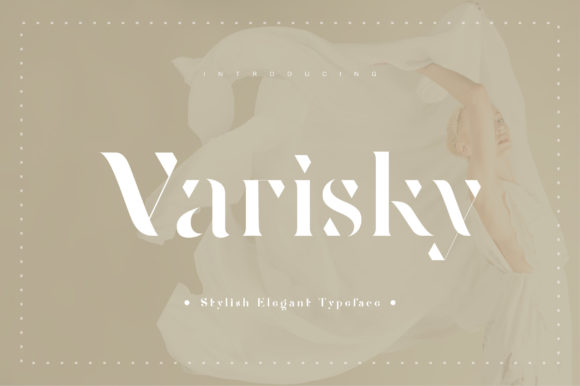
Introducing Varisky, the Stunning Display Font: A Masterpiece of Elegance and Originality
Step into the world of exceptional typography with Varisky, a breathtaking display font meticulously crafted to captivate your audience. Its captivating calligraphic roots, expertly blended with a touch of modernity, effortlessly elevate your projects to new heights. Varisky is not just a font; it's a journey through the realm of visual aesthetics, inviting you to explore the boundless possibilities of creative expression.
Mesmerize Your Audience with Every Stroke:
With Varisky, every letter becomes an art form, a visual symphony that dances across the page, commanding attention and leaving a lasting impression. Its carefully crafted curves and intricate details exude a sense of timeless elegance, evoking a sense of awe and appreciation. Whether it's a captivating logo, an enchanting poster, or a mesmerizing website, Varisky transforms your words into masterpieces that captivate and inspire.
Unleash Your Creativity with Endless Possibilities:
Varisky's versatility is as boundless as your imagination. Its carefully balanced proportions and harmonious letterforms make it a perfect choice for a wide range of design projects. From sleek and sophisticated logos that exude professionalism to playful and whimsical illustrations that spark joy, Varisky becomes an extension of your creative vision, effortlessly adapting to your unique style.
Make a Bold Statement with Confidence:
In a world of ordinary fonts, Varisky stands out as a beacon of originality, empowering you to make a bold statement that resonates with your audience. Whether you're a seasoned designer seeking to elevate your work or a novice just starting your creative journey, Varisky becomes your trusted companion, guiding you towards exceptional results.